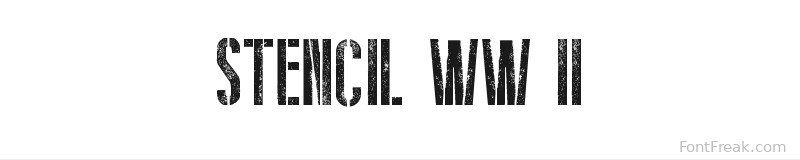
Stencil WW II
About Stencil WW II
Stencil WW II is a striking display typeface designed by Galdino Otten Fonts, embodying a military aesthetic reminiscent of the stencil lettering used during World War II. This font, categorized as a stencil typeface, features bold, geometric letterforms that are characterized by their sturdy stroke weight and uniformity. The design incorporates cut-out sections that give it a rugged, industrial feel, making it perfect for conveying strength and resilience. The overall spacing is balanced, allowing for easy readability while maintaining its decorative appeal.
The versatility of the Stencil WW II font makes it ideal for various applications. It works exceptionally well for movie posters, particularly those in the action or historical genres, where a sense of drama and urgency is required. Additionally, it can be effectively used in graphic novels or comic book titles, capturing attention with its bold presence. Small business owners can utilize this font for branding purposes, especially in sectors related to military-themed merchandise or outdoor adventure gear. Content creators may find it particularly useful for creating impactful social media graphics or promotional materials that need to stand out.
Targeting graphic designers, small business owners, and content creators, the Stencil WW II font free download is an accessible option for those looking to add a unique touch to their projects. Its distinctive style and historical roots offer designers the chance to evoke a sense of nostalgia while remaining contemporary. The Stencil WW II font stands out not only for its aesthetic qualities but also for its ability to convey a strong narrative, making it a valuable addition to any designer’s font collection.